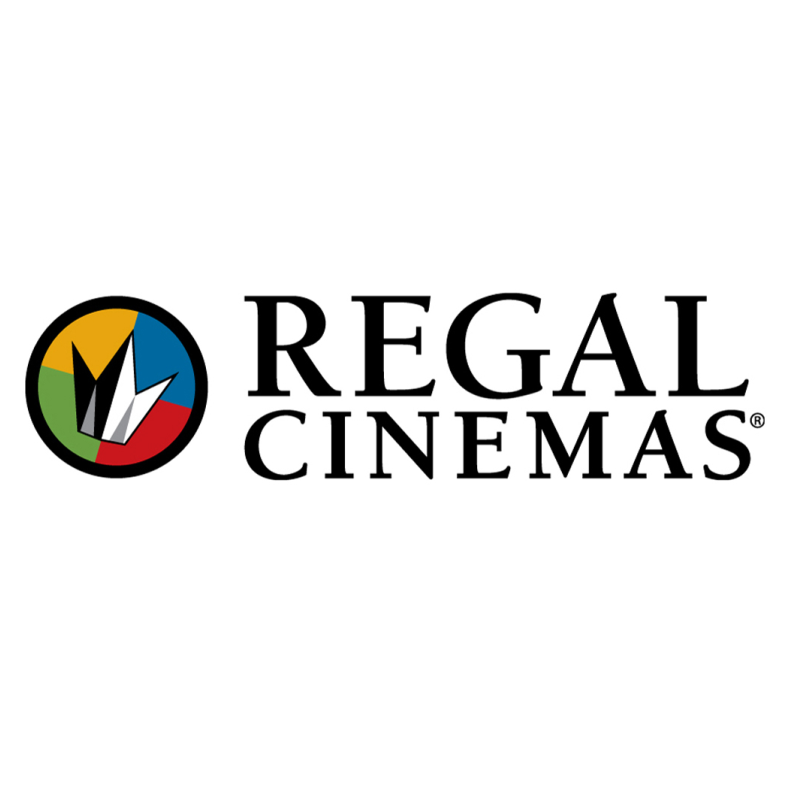
Regal Cinemas Font
EntertainmentRegal Cinemas is one of the largest movie theater chains in the United States, offering a variety of film screenings, food and beverage options, and loyalty programs for moviegoers. It is a subsidiary of the UK-based Cineworld Group.
Regal Cinemas' logo showcases the ITC Berkeley Old Style font, a serif typeface designed by Tony Stan in 1983. This font is a modern version of Fredric Goudy's California Old Style, originally created for the University of California Press at Berkley.